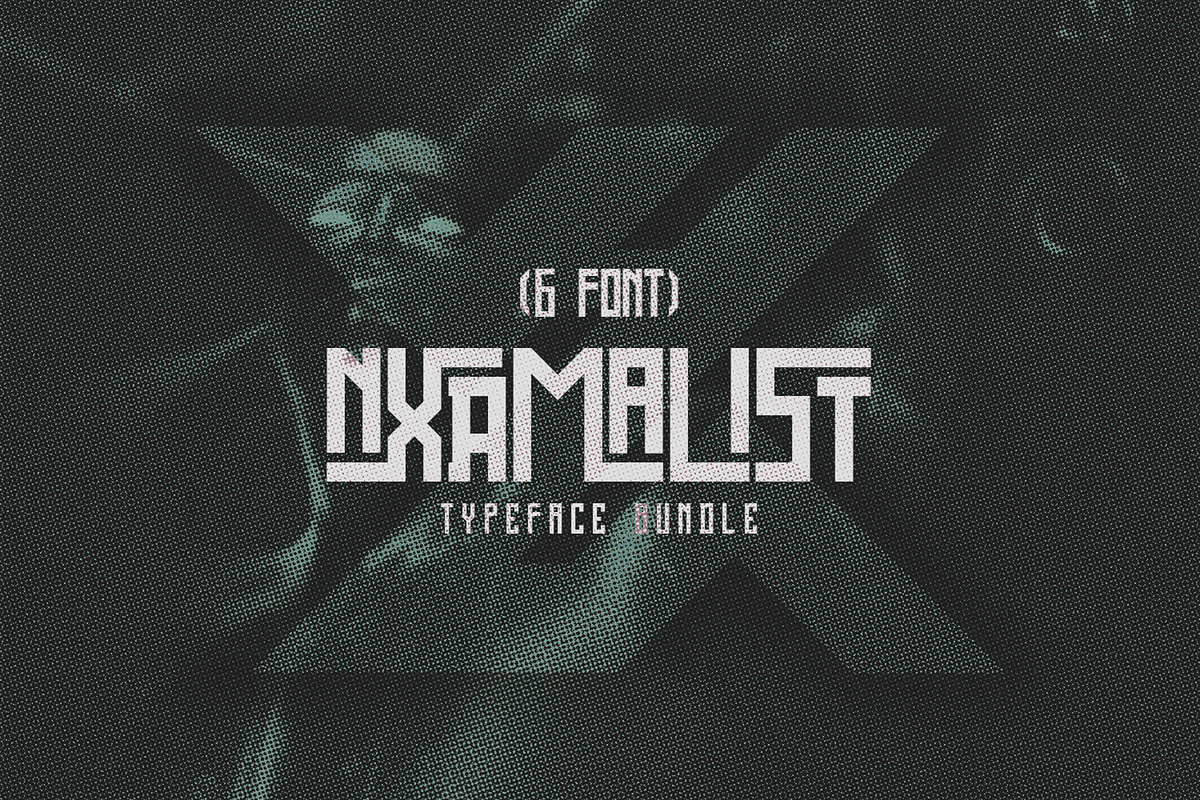
This bundle includes 6 carefully curated fonts that range from sleek sans-serifs to subtle display styles—perfect for branding, editorial layouts, UI/UX design, packaging, and high-end marketing materials. Every typeface in the NXRMALIST collection is built to enhance clarity, elegance, and visual harmony.
By choosing NXRMALIST Typeface Bundle [6 Fonts] Free Download, you're getting a versatile and easy-to-install set of fonts that work seamlessly across all major design platforms. Whether you're building a luxury brand or creating clean digital content, this bundle gives you the modern, minimalist tools you need to make a lasting impression.